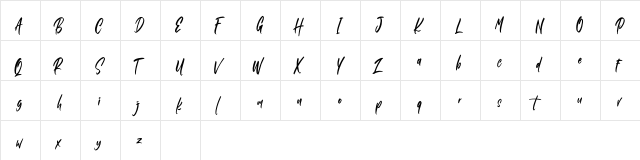
Rolling Back Regular
| Designer | Donis Miftahudin |
Design Context for Rolling Back Typeface
Rolling Back is a composed and adaptable typeface that performs quietly and consistently across a wide range of design contexts.